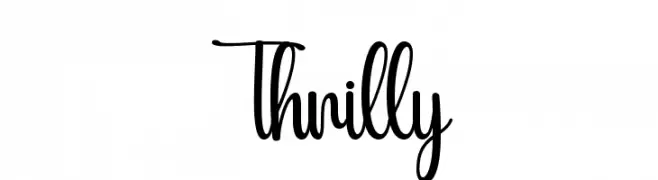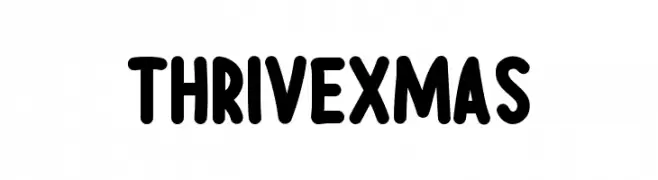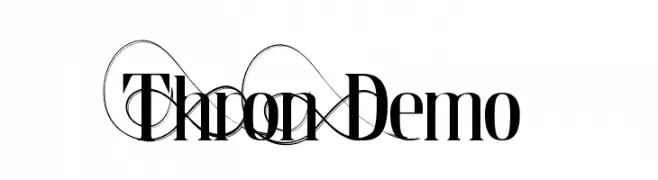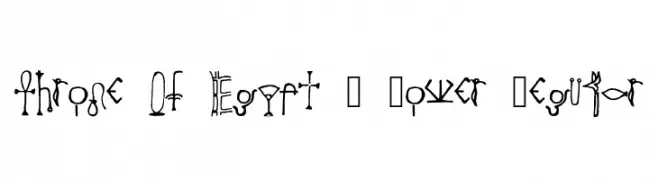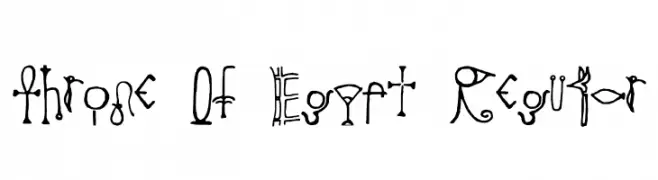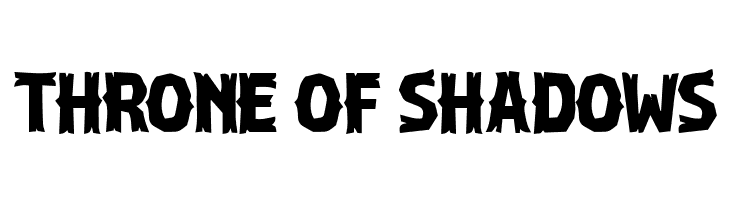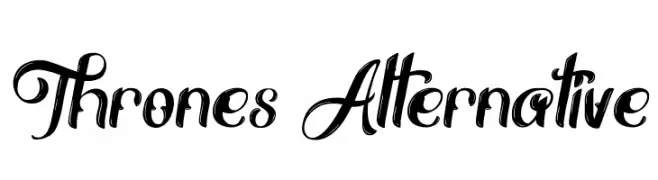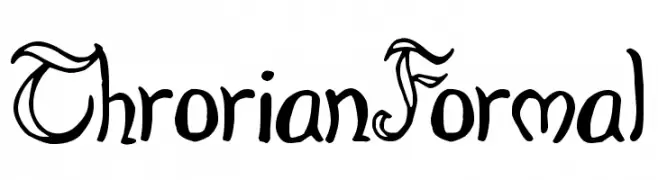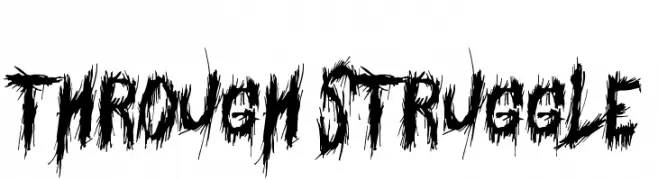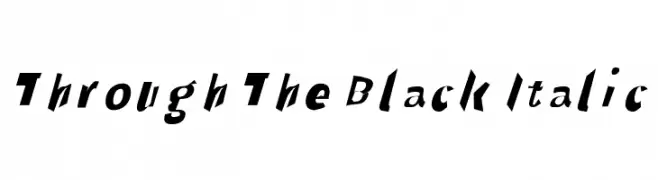
Playful handwritten script font.
A playful, bold font with rounded edges and consistent thickness.
A playful, bold font with a hand-drawn, casual style.
A bold, high-contrast serif font with elegant and sophisticated features.
A decorative serif font with high contrast and elegant flourishes.
An artistic font inspired by ancient Egyptian hieroglyphs, featuring intricate and bold designs.
An ornamental font inspired by Egyptian hieroglyphs, rich in historical and mystical elements.
An ornate and decorative font with elegant swirls and loops.
A bold, geometric font with an urban, industrial style.
A whimsical and artistic font with exaggerated curves and playful details.
A whimsical, decorative font with a fantasy-like, medieval influence.
An ornate and decorative font with intricate details and a whimsical touch.
An ornate and decorative font with intricate swirls and flourishes.
A bold, modern script font with a dynamic, handwritten style.
Illustrative, Victorian-inspired decorative font using detailed engravings for each character.
A decorative font with intricate, storybook-style illustrations within each character.
A distressed, textured font with a vintage, typewriter-inspired style.
A playful, casual handwritten font with smooth curves and a personal touch.
A bold, playful handwritten font with rounded, energetic letterforms.
A bold, geometric font with a blocky and modern design.
A bold, playful font with rounded strokes and a bubble-like appearance.
A bold, graffiti-style font with bubble-like letters and urban flair.